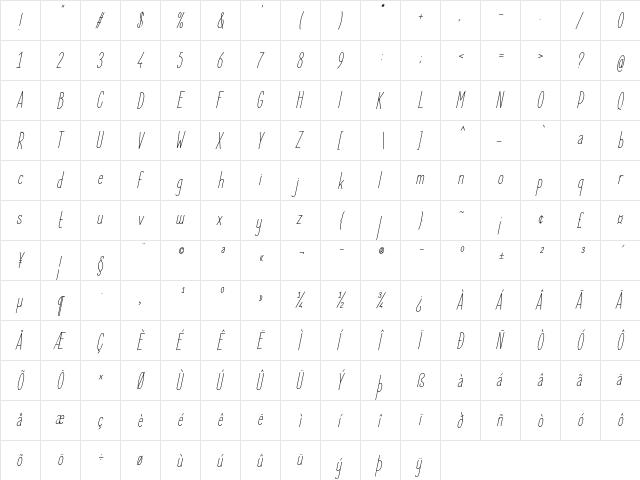
Elegant Sans Light Italic
Design Context for Elegant Sans Typeface
Elegant Sans is a composed and adaptable typeface that performs quietly and consistently across a wide range of design contexts. The dynamic lean of this cut emphasises speed and emphasis in any layout. The delicate stroke weight brings airiness and refinement to layouts.
Pro Tip: Try Elegant Sans for annotation and caption copy alongside an upright companion — the contrast in angle creates a dynamic but ordered typographic system.